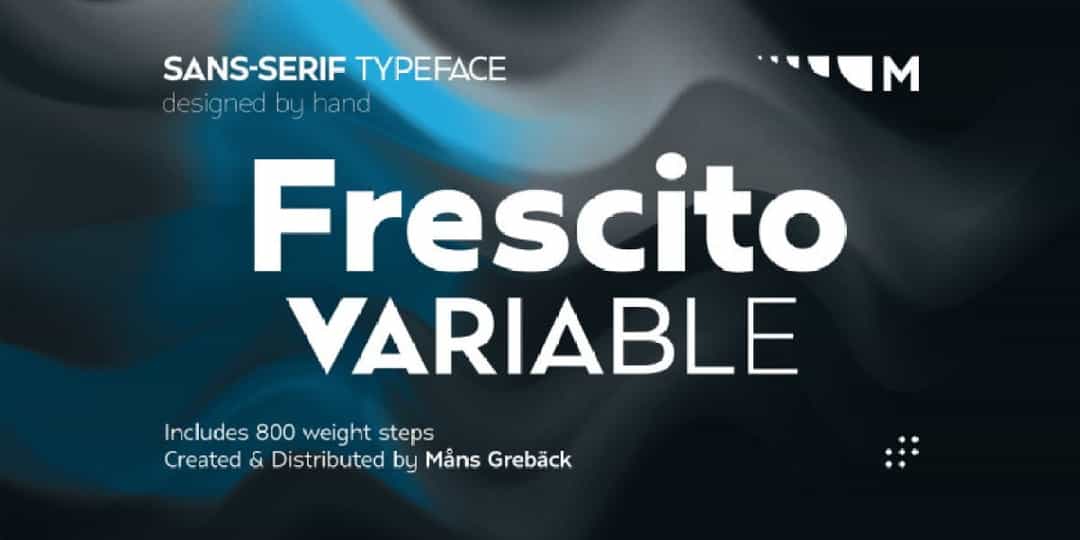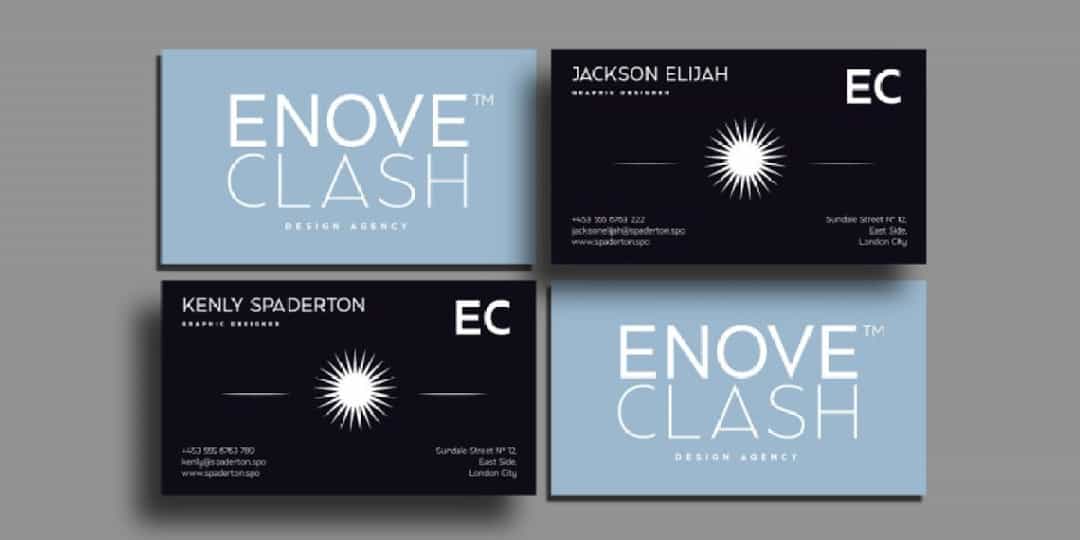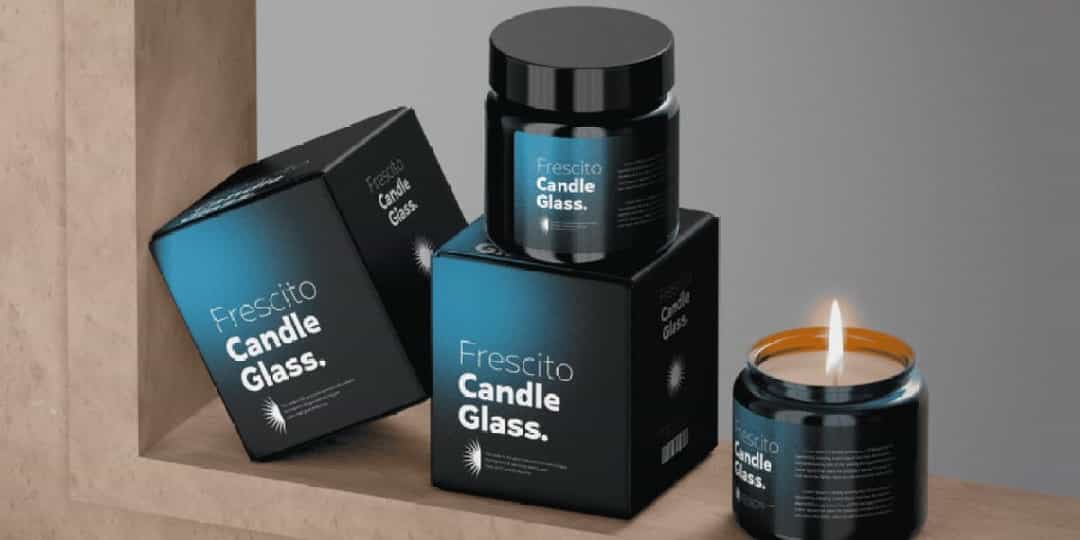
Frescito is an exciting, modern and urban-smart sans serif font with an engaging design that energises. Well balanced and flexible with its clear monoline style, Frescito was intended to be used for branding, advertising and editorial designs across digital and editorial media platforms. Available in five standard weights Thin Light Medium Bold Black plus an adjustable font which provides maximum customisation possibilities plus Italics;